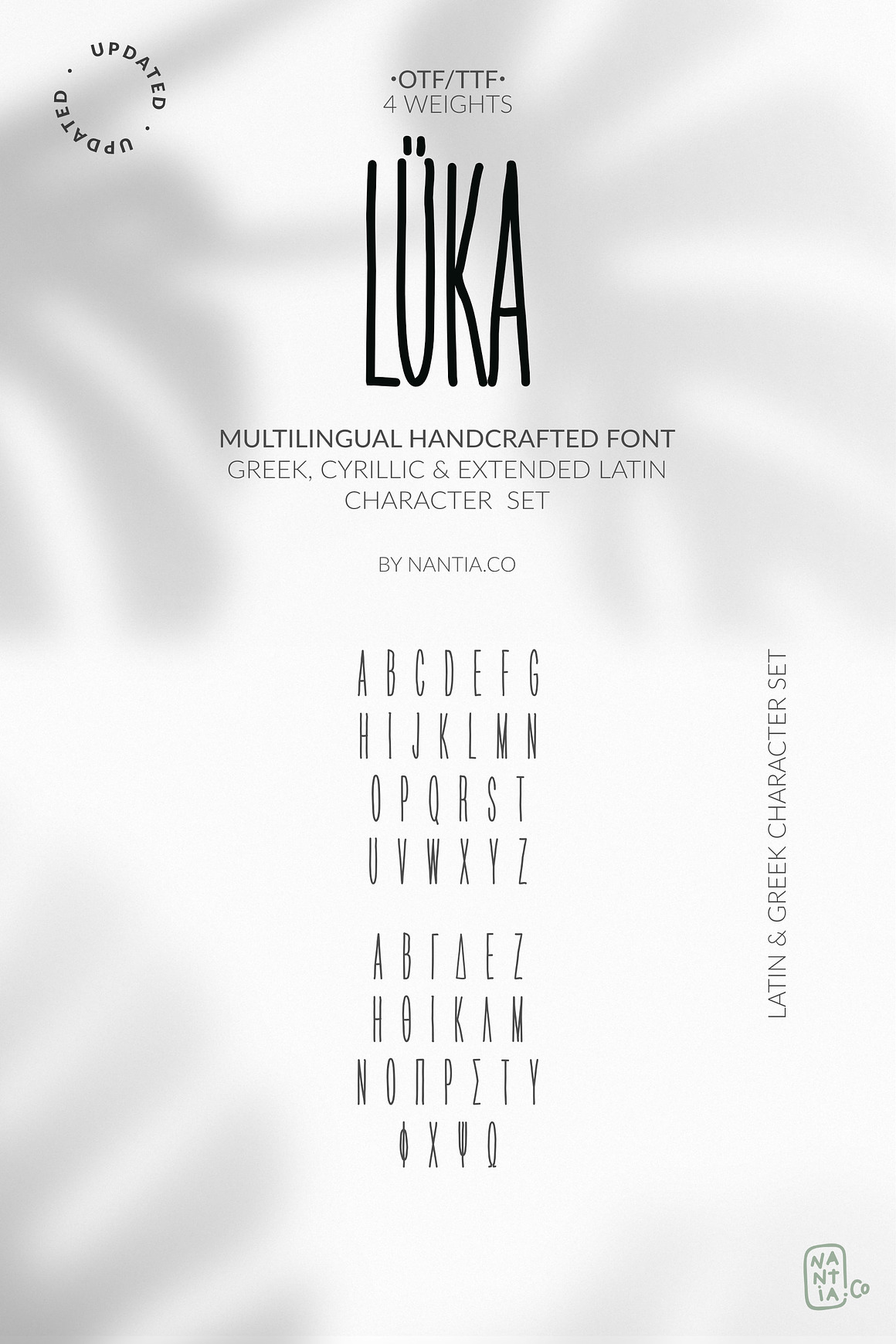
HandWritten Greek Cyrillic Font
HandWritten Greek Cyrillic Font is perfect for multilingual documents, educational materials, historical manuscripts, cultural publications, language learning resources, international correspondence, academic papers, religious texts, literary works, and authentic ethnic design projects.
What makes HandWritten Greek Cyrillic Font exciting is its authentic handcrafted appearance that bridges multiple ancient writing systems with contemporary design needs. This remarkable typeface captures the natural flow and character variations found in traditional handwriting, making it perfect for projects requiring cultural authenticity and personal touch. The font's organic letterforms create an intimate reading experience that connects modern audiences with classical traditions.
The HandWritten Greek Cyrillic Font family includes Regular, Bold, Light, Italic, Medium, Condensed, and Extended variants. Each weight maintains the handwritten character while offering different levels of emphasis for various typographic applications across Greek, Cyrillic, and Latin alphabets.
Whether you're creating educational content, designing cultural exhibitions, developing language learning materials, or working on historical documentation, HandWritten Greek Cyrillic Font provides authentic character representation. Its versatile nature makes it ideal for museums, universities, publishing houses, and cultural organizations seeking genuine typographic solutions.
The font's natural irregularities and organic flow replicate the warmth of human handwriting while maintaining excellent legibility across different writing systems. Each character has been carefully designed to preserve the unique characteristics of Greek and Cyrillic scripts while ensuring seamless integration with Latin characters.
This comprehensive typeface supports extensive character sets including Greek alphabets, Cyrillic scripts, and Latin extensions, making it perfect for multilingual publications and international academic projects. The font's authentic appearance adds credibility to historical research, cultural studies, and educational materials.
Embrace the rich heritage of classical writing systems through contemporary digital typography.